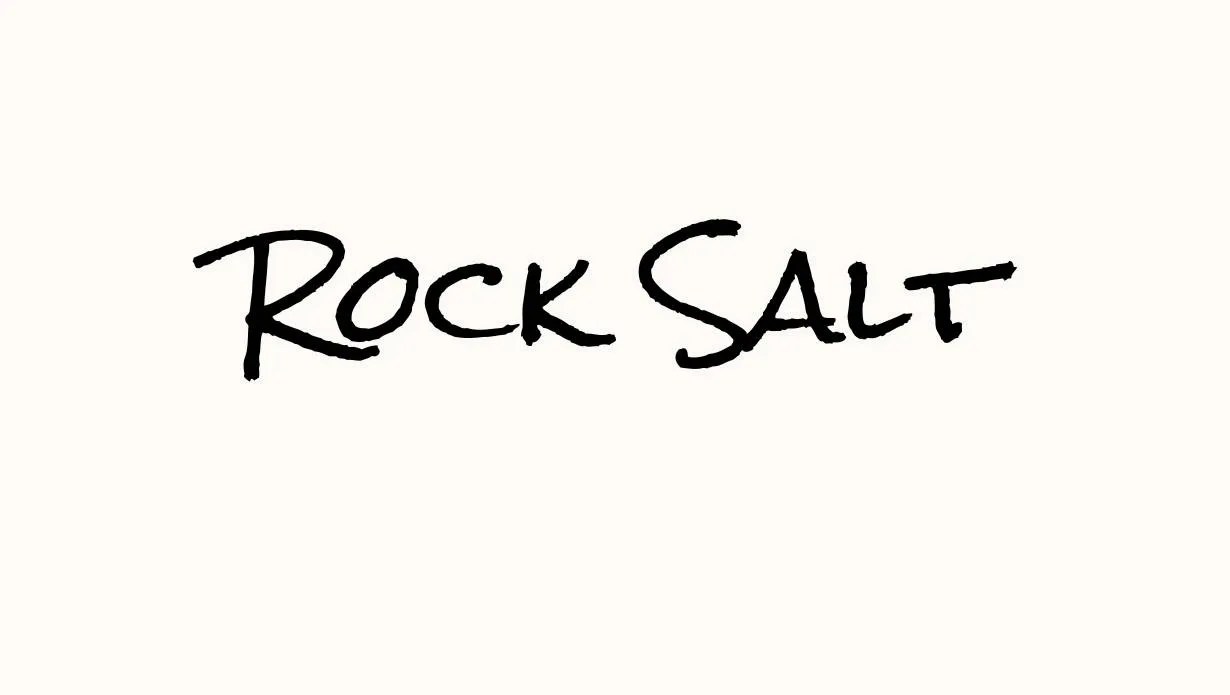
Rock Salt Bold Font Free Download . Download and install the rock salt font by sideshow. The font is free for both personel and commercial. Download and install the rock salt free font. The rock salt font has been downloaded 55,003 times. The font is licensed under apache license. Rock salt is a script, handwritten font designed by sideshow. The rock salt font family is a versatile handwriting web typeface offering a single weight of 400 for free.
The font is free for both personel and commercial. The font is licensed under apache license. The rock salt font has been downloaded 55,003 times. Rock salt is a script, handwritten font designed by sideshow. Download and install the rock salt font by sideshow. The rock salt font family is a versatile handwriting web typeface offering a single weight of 400 for free. Download and install the rock salt free font.